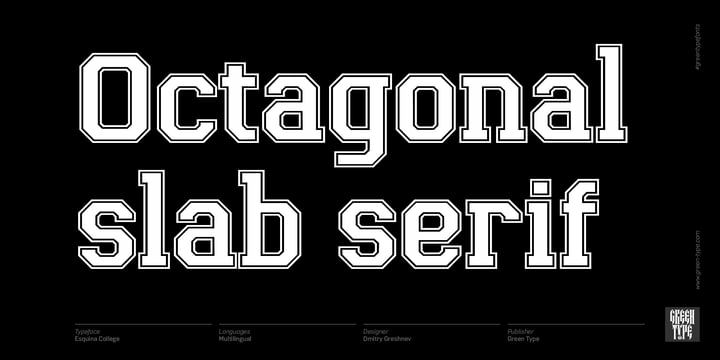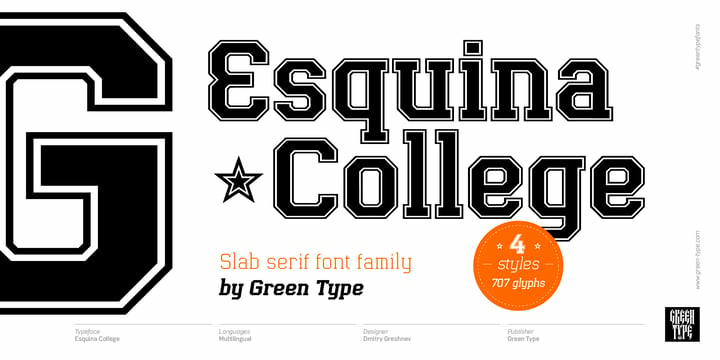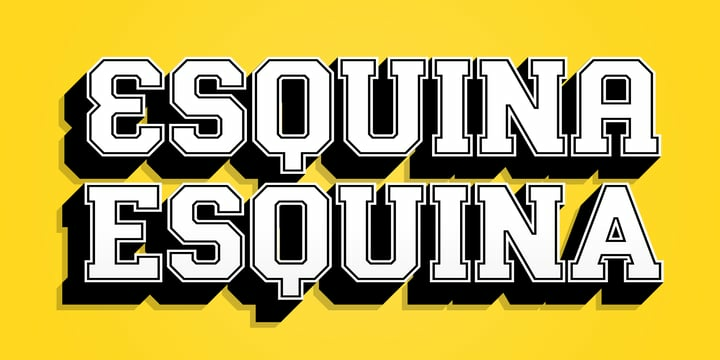
Esquina College Font Family
Esquina College Font FamilyEsquina College is a family of octagonal slab serif fonts. Designed for use in outdoor advertising, branding, packaging. Esquina College is also ideal for sports related materials such as team logos, flyers, posters and more.